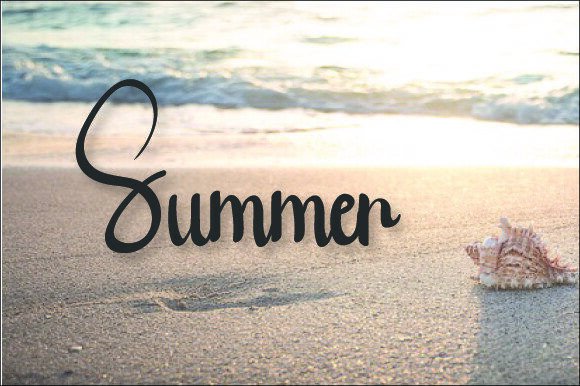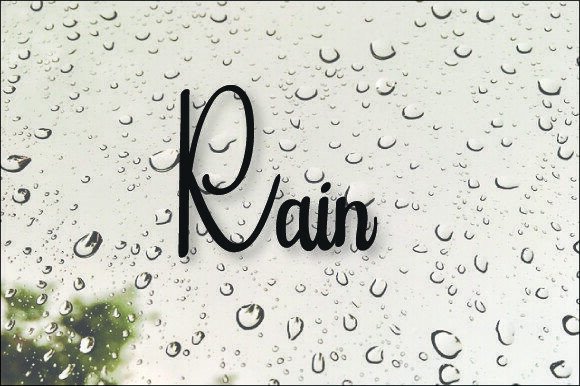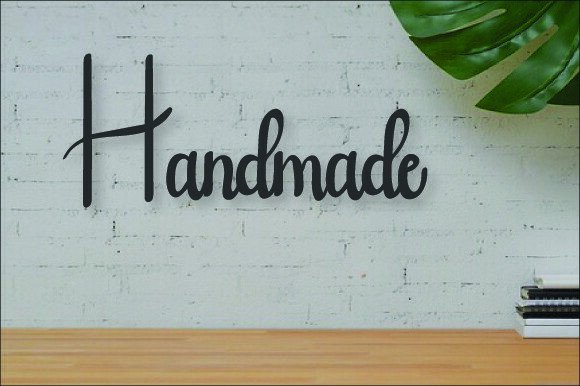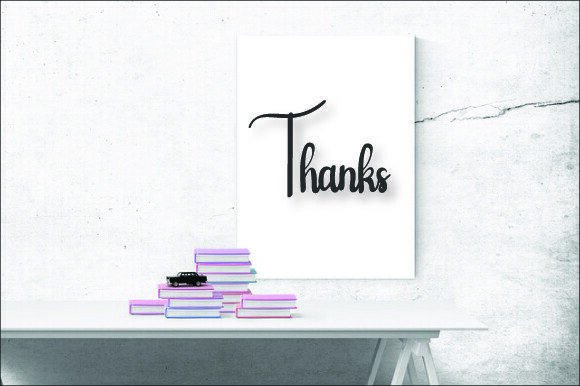
When Words Become Works of Art
You know that moment when you’re working on a design project and the perfect font eludes you? The one that elevates your message, adds a touch of elegance, and makes your audience swoon? That’s exactly what I was searching for the other day, and then I stumbled upon the enchanting Barbie Font.
This romantic and sweet calligraphy typeface is more than just a pretty face – it’s a luxury spark that adds depth and sophistication to any design. With characters that dance along the baseline, the Barbie Font is sure to captivate your audience and leave a lasting impression. Whether you’re a seasoned designer or just starting out, this font is a valuable addition to your toolkit.
• Font Family: The Barbie Font is a custom-designed font family, specifically created for the iconic Barbie doll brand.
• Unique Characteristics: The Barbie Font features a distinctive, cursive script style with rounded edges and a playful feel, making it instantly recognizable and memorable.
• Legibility: The font is designed for optimal legibility, with clear letterforms and ample spacing between characters, making it easy to read even at smaller sizes.
Barbie Font Review
When I first laid eyes on the Barbie Font, I was immediately struck by its playful, whimsical vibe ✨. The font is designed to evoke the carefree spirit of the iconic doll, and it certainly delivers on that front. The rounded edges and soft curves give it a friendly, approachable feel that’s perfect for projects that need a touch of nostalgia or playfulness.
The Barbie Font is also incredibly versatile, working well for a wide range of applications from logos to packaging to signage ✨. The font is available in a variety of weights and styles, making it easy to find the perfect fit for your project. Additionally, the font is highly customizable, allowing you to adjust the spacing and size to suit your needs.
• ⚠️ Limited to a specific aesthetic: While the Barbie Font is great for projects that need a playful vibe, it may not be the best choice for more serious or professional applications.
• ⚠️ May not be suitable for small text: The rounded edges and soft curves of the font can make it difficult to read in small text sizes.
• ⚠️ Limited language support: The font may not be available in as many languages as some other fonts, which could be a limitation for international projects.
Overall, I think the Barbie Font is a great addition to any designer’s toolkit. While it may have some limitations, its versatility and playfulness make it a great choice for projects that need a touch of whimsy.
Tip: Use the Barbie font in combination with bright and pastel colors to create a playful and feminine design.
Tip: Use the Barbie font in combination with bold lines and bright colors to create a bold and eye-catching design.
Tip: Use the Barbie font in combination with fun and colorful graphics to create a playful and engaging design.
The Barbie font is commonly used in:
• Children’s party invitations and decorations
• Girls’ fashion and beauty blogs and websites
• Toy and doll packaging and marketing materials
• Play